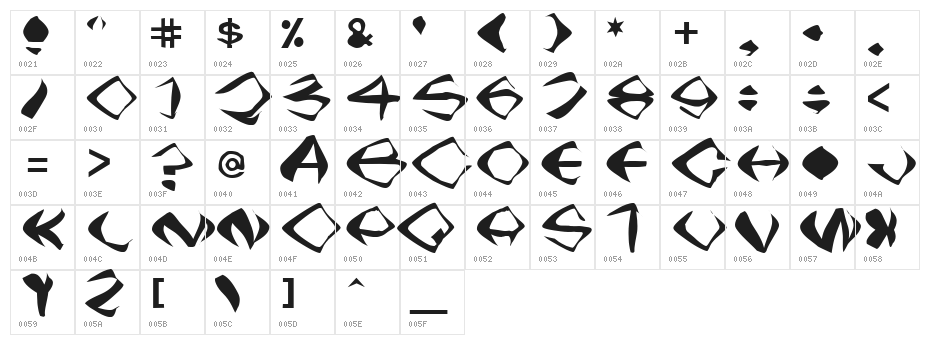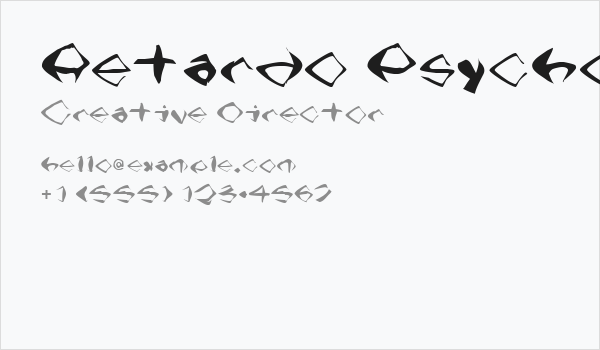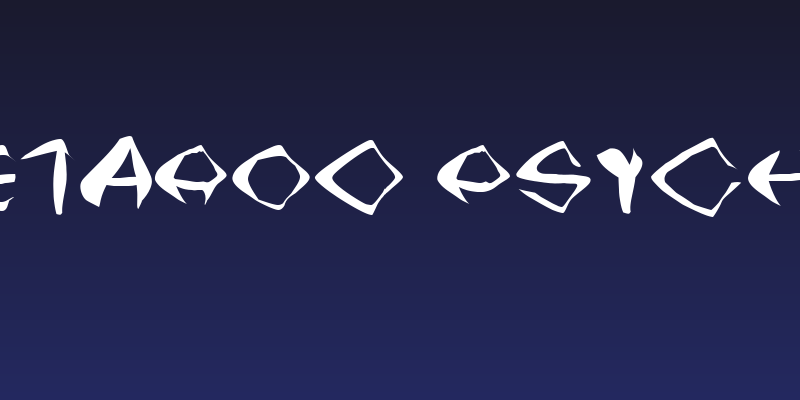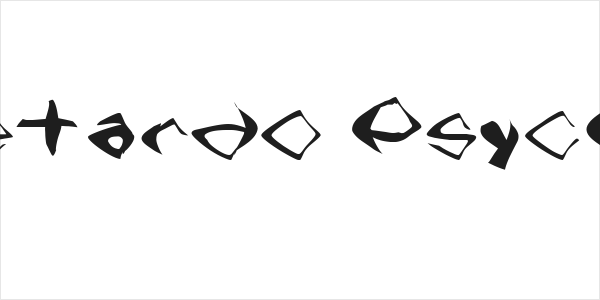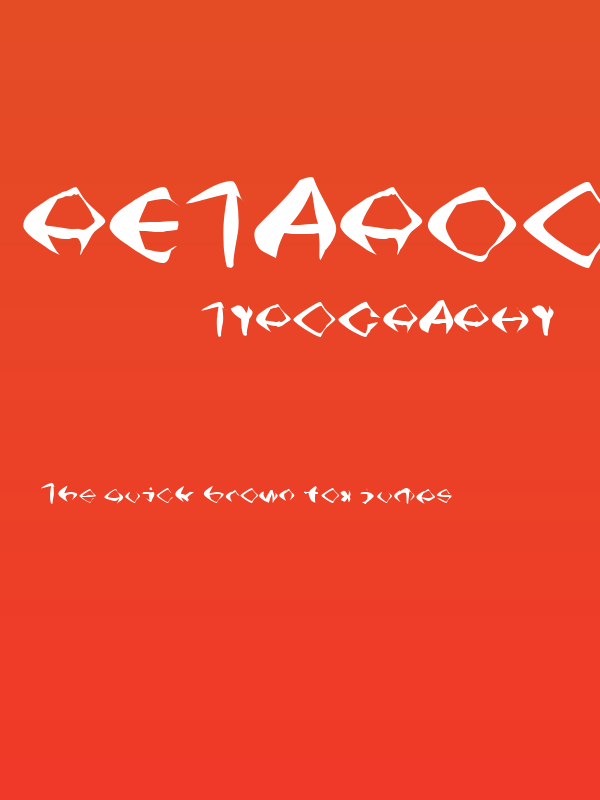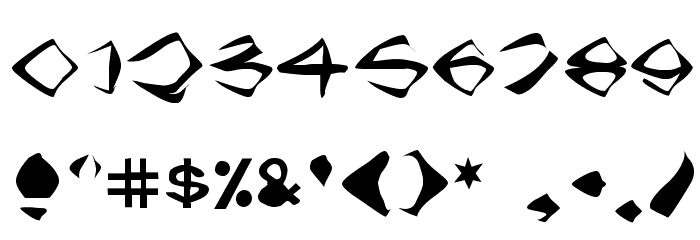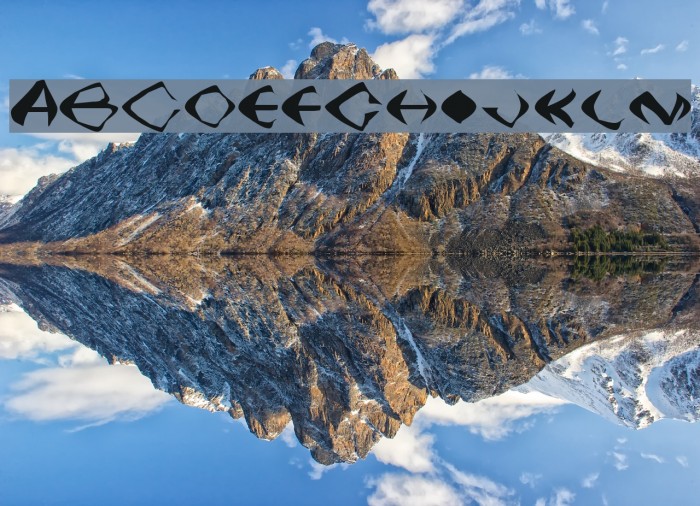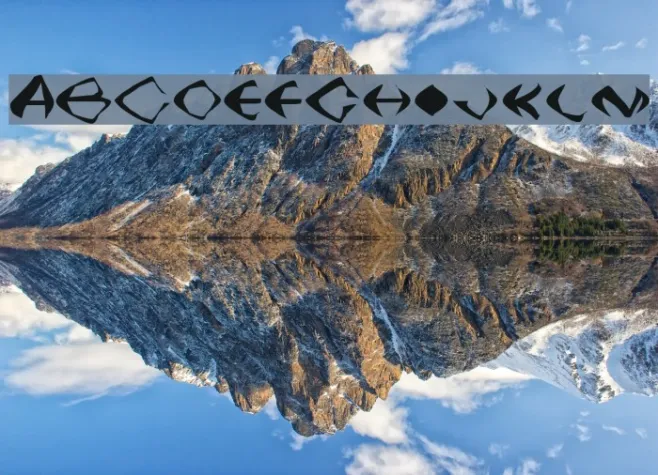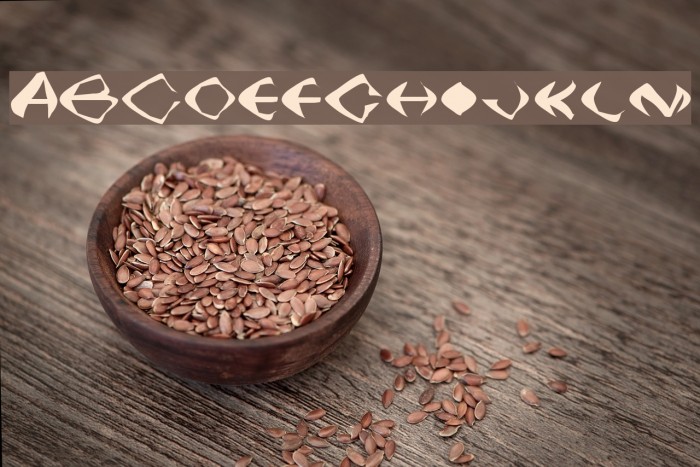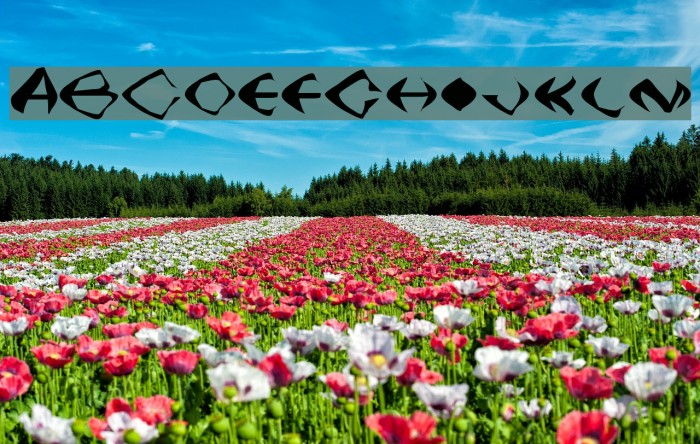
Retardo Psycho Font
Retardo Psycho Description
This font features a highly stylized and abstract design, characterized by sharp angles and irregular shapes that create a sense of movement and energy. The letters are bold and striking, with a unique geometric flair that makes them stand out. The uppercase and lowercase letters maintain a consistent style, while the numbers and special characters follow the same dynamic and edgy aesthetic. This font is ideal for projects that require a bold and unconventional look, making it perfect for creative and artistic applications.
| Overall Style | Modern, Abstract |
| Proposed Projects | Ideal for album covers, posters, and edgy branding projects. |